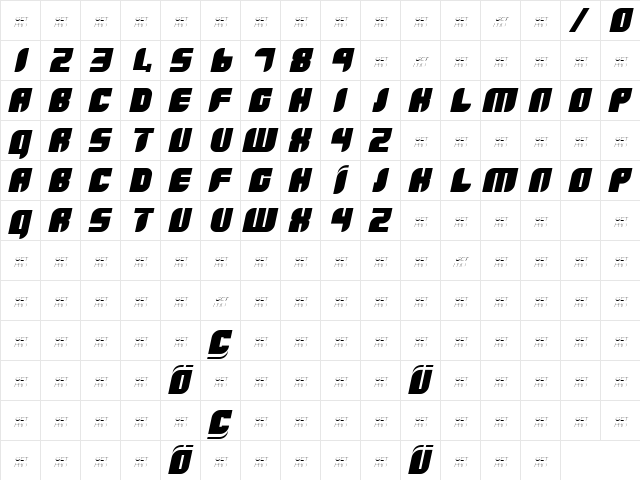
Boldie Italic Italic
Design Context for Boldie Italic Typeface
Boldie Italic is a composed and adaptable typeface that performs quietly and consistently across a wide range of design contexts. Its italic angle brings a sense of urgency and motion to the letterforms. Its bold stroke weight gives it real presence on the page.
Pro Tip: Use Boldie Italic for emphasis, pull quotes, and subheadings where its slanted energy can add rhythm to the layout.